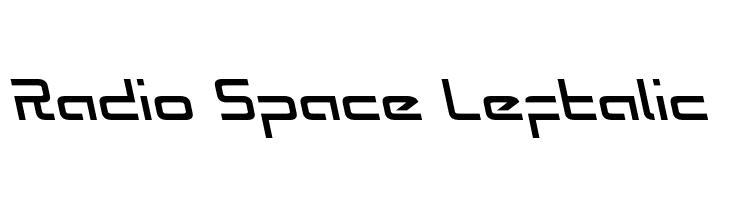
A futuristic, geometric font with angular, streamlined letterforms and a slight slant.
A futuristic, semi-italic font with a sleek, geometric design.
A bold, angular font with a dynamic, edgy style.
A bold, geometric font with uniform strokes and strong visual impact.
A bold, geometric font with a digital, futuristic style.
A bold, geometric font with a futuristic, digital aesthetic.
A modern, geometric font with clean lines and uniform stroke width.
A futuristic, geometric font with circular and semi-circular shapes.